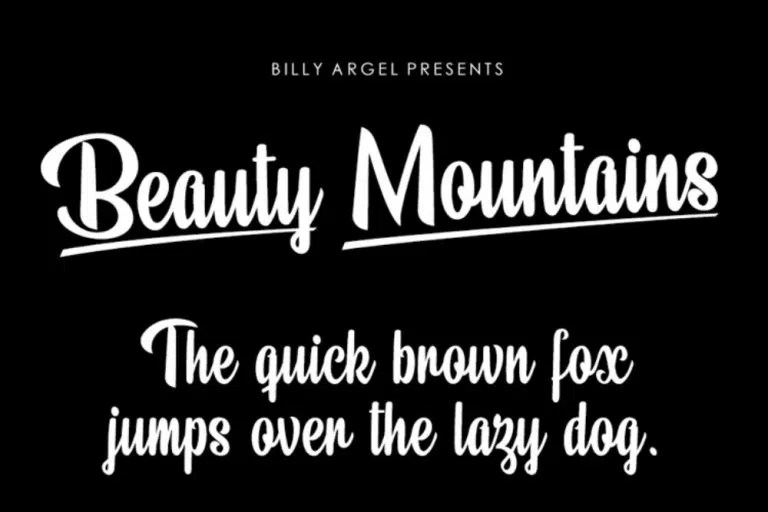
Best Fonts For Brochure Headings . The best fonts for business brochures and flyers combine classic styling with modern features. The best fonts for brochures are those that whisper (or shout, if that’s your style) your brand’s personality. Discover the best fonts to use in brochure design. If merriweather is used for the main. What is the best font size for a brochure? You can make stunning headings in modern banners, brochures, and flyers with this font style as it gives a minimal and composed look to your design. For example, if the headings or titles of a brochure are in a serif font, then consider using a sans serif for the text. Whether you're creating a corporate pamphlet, an event flyer, or a creative showcase, these fonts provide the essential ingredients for. Distinctive and versatile, these font sets from designers around the globe add a sophisticated, professional look to promotional materials of all kinds. Our guide highlights the 20 best brochure fonts and tips for creating the best brochure.
For example, if the headings or titles of a brochure are in a serif font, then consider using a sans serif for the text. If merriweather is used for the main. You can make stunning headings in modern banners, brochures, and flyers with this font style as it gives a minimal and composed look to your design. Discover the best fonts to use in brochure design. The best fonts for business brochures and flyers combine classic styling with modern features. The best fonts for brochures are those that whisper (or shout, if that’s your style) your brand’s personality. Our guide highlights the 20 best brochure fonts and tips for creating the best brochure. Distinctive and versatile, these font sets from designers around the globe add a sophisticated, professional look to promotional materials of all kinds. Whether you're creating a corporate pamphlet, an event flyer, or a creative showcase, these fonts provide the essential ingredients for. What is the best font size for a brochure?
Best Fonts For Brochure Headings Whether you're creating a corporate pamphlet, an event flyer, or a creative showcase, these fonts provide the essential ingredients for. Distinctive and versatile, these font sets from designers around the globe add a sophisticated, professional look to promotional materials of all kinds. What is the best font size for a brochure? You can make stunning headings in modern banners, brochures, and flyers with this font style as it gives a minimal and composed look to your design. The best fonts for brochures are those that whisper (or shout, if that’s your style) your brand’s personality. Discover the best fonts to use in brochure design. If merriweather is used for the main. The best fonts for business brochures and flyers combine classic styling with modern features. For example, if the headings or titles of a brochure are in a serif font, then consider using a sans serif for the text. Our guide highlights the 20 best brochure fonts and tips for creating the best brochure. Whether you're creating a corporate pamphlet, an event flyer, or a creative showcase, these fonts provide the essential ingredients for.
10 Free Fonts for your 2015 Graphic Design Projects Best Fonts For Brochure Headings You can make stunning headings in modern banners, brochures, and flyers with this font style as it gives a minimal and composed look to your design. Distinctive and versatile, these font sets from designers around the globe add a sophisticated, professional look to promotional materials of all kinds. If merriweather is used for the main. Our guide highlights the 20. Best Fonts For Brochure Headings.
The Best Fonts for Brochures (with Examples) Envato Tuts+ Best Fonts For Brochure Headings Distinctive and versatile, these font sets from designers around the globe add a sophisticated, professional look to promotional materials of all kinds. Our guide highlights the 20 best brochure fonts and tips for creating the best brochure. The best fonts for business brochures and flyers combine classic styling with modern features. Whether you're creating a corporate pamphlet, an event flyer,. Best Fonts For Brochure Headings.
Best Fonts for Business Brochures and Flyers That Stand Out How to Best Fonts For Brochure Headings Discover the best fonts to use in brochure design. What is the best font size for a brochure? Our guide highlights the 20 best brochure fonts and tips for creating the best brochure. For example, if the headings or titles of a brochure are in a serif font, then consider using a sans serif for the text. If merriweather is. Best Fonts For Brochure Headings.
Brochure Beauty 19 Best Fonts for Brochures Best Fonts For Brochure Headings If merriweather is used for the main. What is the best font size for a brochure? Whether you're creating a corporate pamphlet, an event flyer, or a creative showcase, these fonts provide the essential ingredients for. Discover the best fonts to use in brochure design. The best fonts for brochures are those that whisper (or shout, if that’s your style). Best Fonts For Brochure Headings.
27 Best Designer Fonts for Brochures & Flyers Best Fonts For Brochure Headings Our guide highlights the 20 best brochure fonts and tips for creating the best brochure. If merriweather is used for the main. Distinctive and versatile, these font sets from designers around the globe add a sophisticated, professional look to promotional materials of all kinds. Discover the best fonts to use in brochure design. The best fonts for business brochures and. Best Fonts For Brochure Headings.
27 Best Designer Fonts for Brochures & Flyers Best Fonts For Brochure Headings Distinctive and versatile, these font sets from designers around the globe add a sophisticated, professional look to promotional materials of all kinds. The best fonts for brochures are those that whisper (or shout, if that’s your style) your brand’s personality. What is the best font size for a brochure? For example, if the headings or titles of a brochure are. Best Fonts For Brochure Headings.
Best Font For Brochure A Comprehensive Guide Best Fonts For Brochure Headings What is the best font size for a brochure? Our guide highlights the 20 best brochure fonts and tips for creating the best brochure. You can make stunning headings in modern banners, brochures, and flyers with this font style as it gives a minimal and composed look to your design. For example, if the headings or titles of a brochure. Best Fonts For Brochure Headings.
10+ Best Fonts for Brochures in 2021 Free and Premium Fonts Best Fonts For Brochure Headings Our guide highlights the 20 best brochure fonts and tips for creating the best brochure. Whether you're creating a corporate pamphlet, an event flyer, or a creative showcase, these fonts provide the essential ingredients for. Distinctive and versatile, these font sets from designers around the globe add a sophisticated, professional look to promotional materials of all kinds. The best fonts. Best Fonts For Brochure Headings.
Best Fonts for Business Brochures and Flyers That Stand Out Creative Best Fonts For Brochure Headings If merriweather is used for the main. Our guide highlights the 20 best brochure fonts and tips for creating the best brochure. For example, if the headings or titles of a brochure are in a serif font, then consider using a sans serif for the text. You can make stunning headings in modern banners, brochures, and flyers with this font. Best Fonts For Brochure Headings.